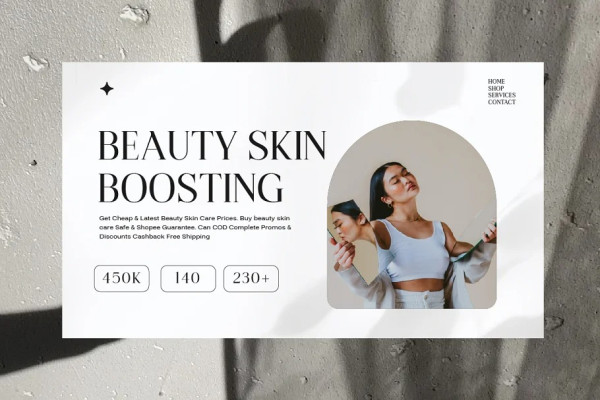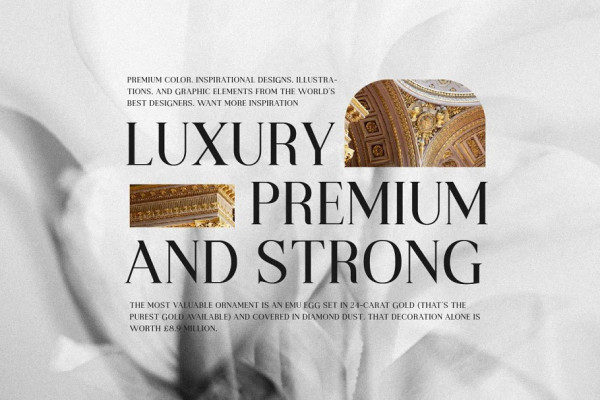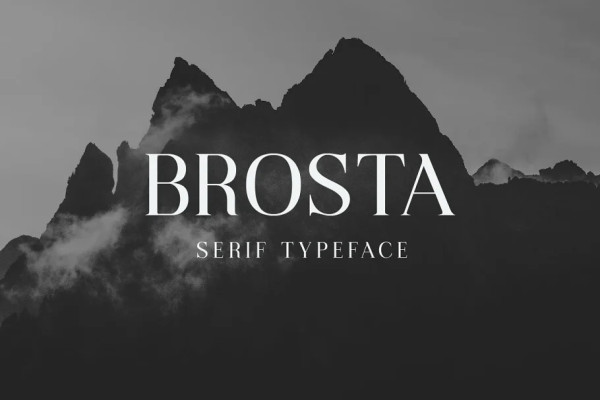
Brosta Font
Brosta Font is the font of choice for designers to add a touch of sophistication and modernity to their projects. Bold lettering creates a strong yet minimalist feel that can make any text stand out.